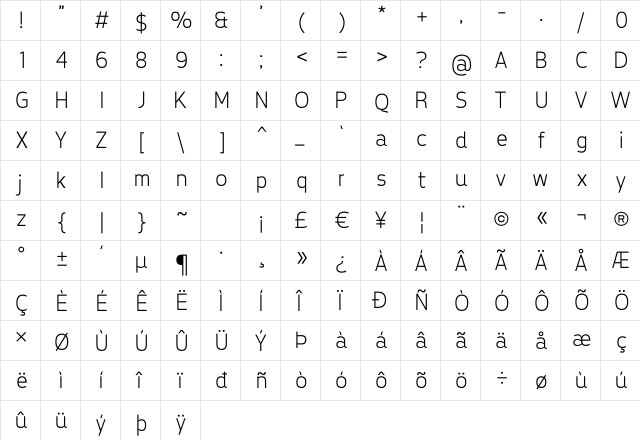
Tepeno Sans Light Regular
| Designer | Jayvee D. Enaguas (Grand Chaos) |
Design Context for Tepeno Sans Light Typeface
Tepeno Sans Light takes a measured approach to typography — its balanced proportions and neutral character make it a reliable workhorse for both digital and print work. Its slender proportions lend an understated elegance to any composition.